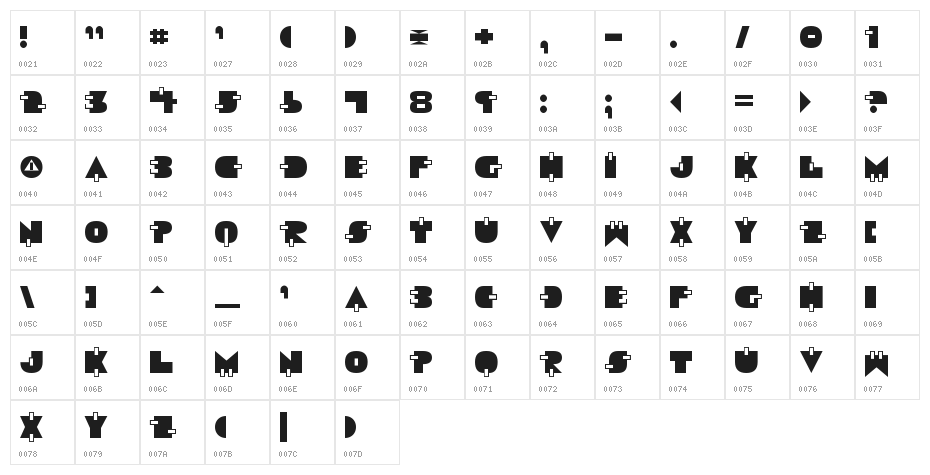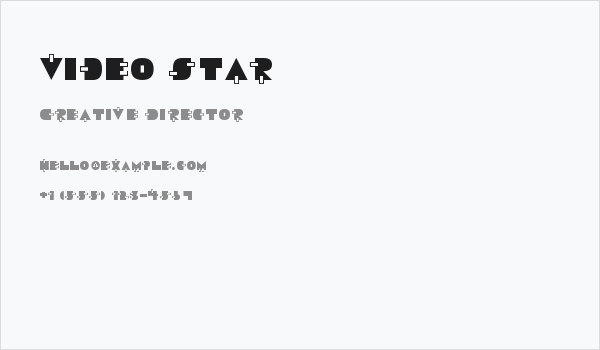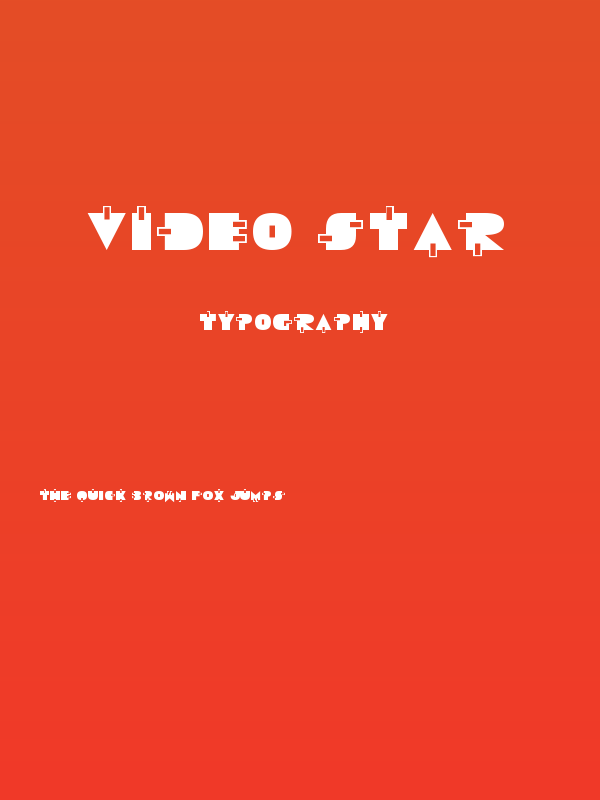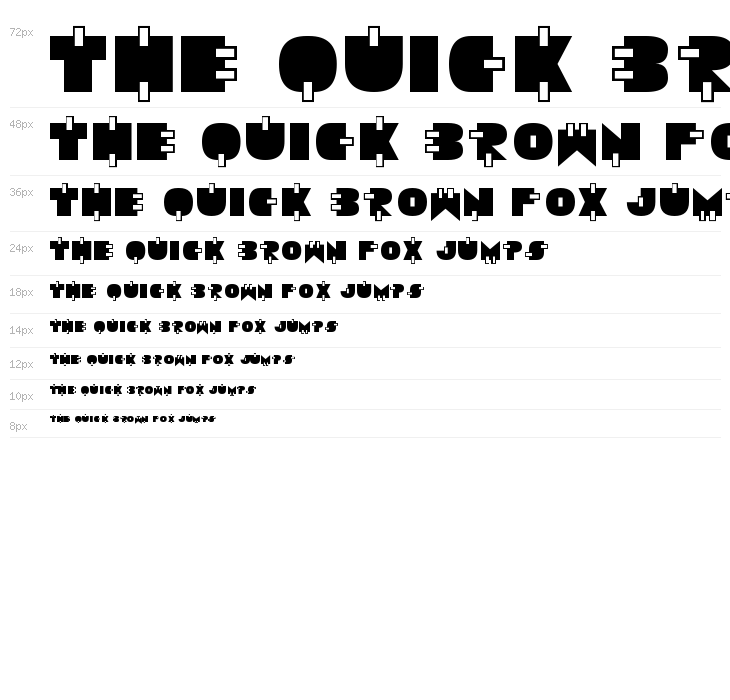
Video Star Font
Video Star Description
This font features a bold and geometric design with a unique, futuristic aesthetic. Each character is constructed with solid, block-like shapes, incorporating angular cuts and sharp edges that create a sense of movement and modernity. The uppercase and lowercase letters maintain a consistent style, with the lowercase mirroring the uppercase in form and structure. Numbers follow the same design principles, ensuring uniformity across all characters. Special characters are stylized to match the overall theme, adding to the font's cohesive look. The font's distinct style makes it stand out, ideal for projects that require a strong visual impact.
| Overall Style | Futuristic, Modern |
| Proposed Projects | Ideal for sci-fi themed projects, video game titles, futuristic branding, and tech-related logos. |